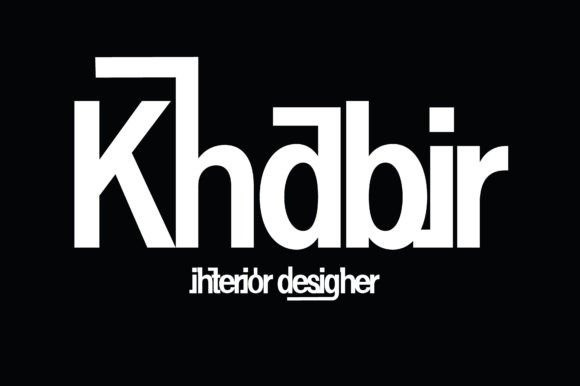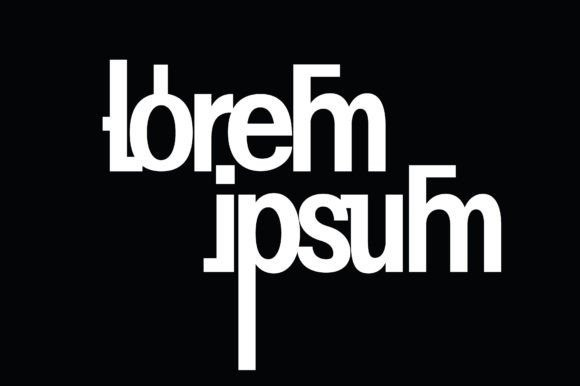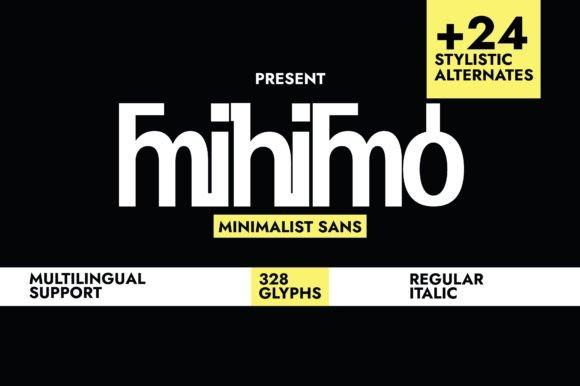
Minimo Font
Minimo Font is a minimalist, geometric, compressed sans serif grotesque typeface. Its compressed aspect and the wide range of stylistic alternatives make it a game player when you want to generate high-quality logotypes or brand names with letterly no time. Start to combine the classic grotesque glyphs with the stylistic alternatives and notice how unlimited and amazing results you can obtain easily.